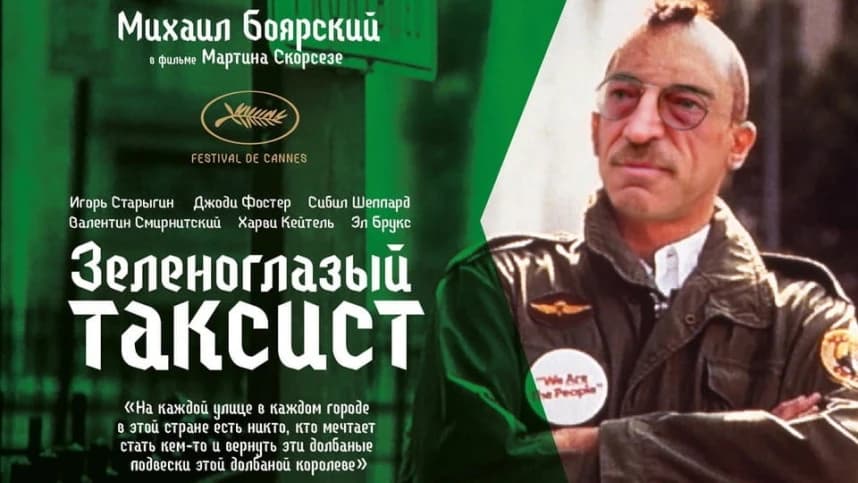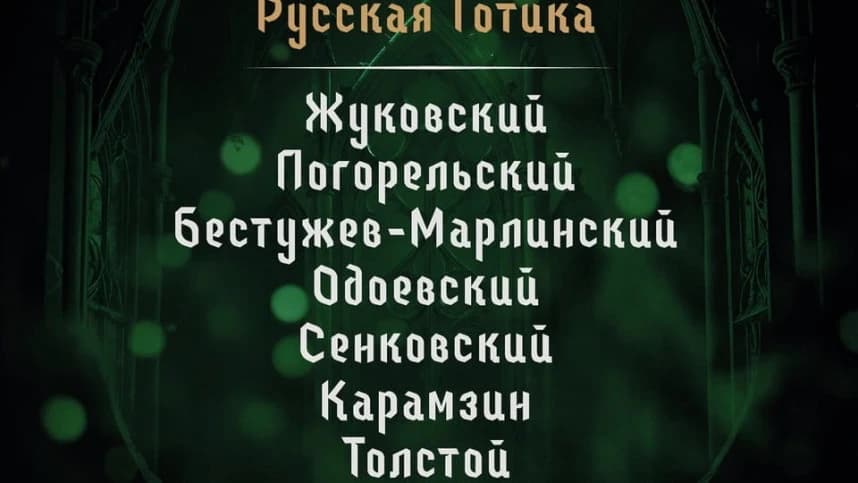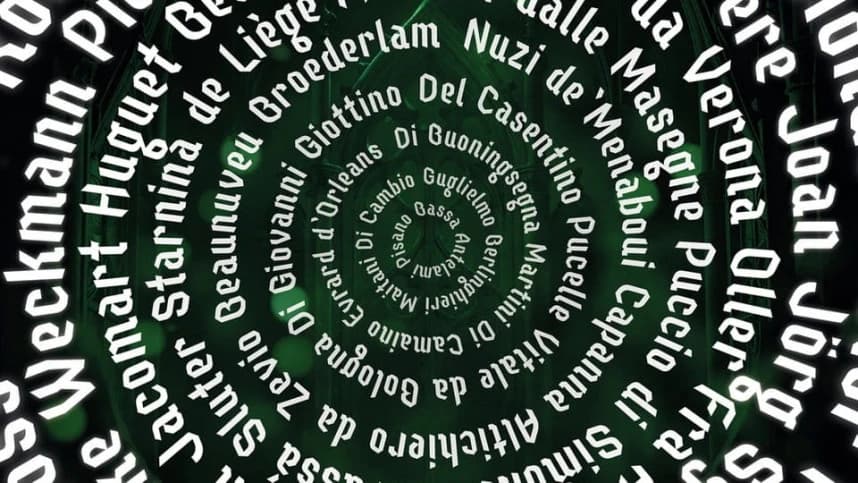
Greengoth Font
Greengoth Font is a striking blackletter-inspired typeface that blends medieval tradition with a modern edge. Its sharp angles, dramatic proportions, and Gothic architecture-inspired forms create a mysterious and powerful atmosphere.